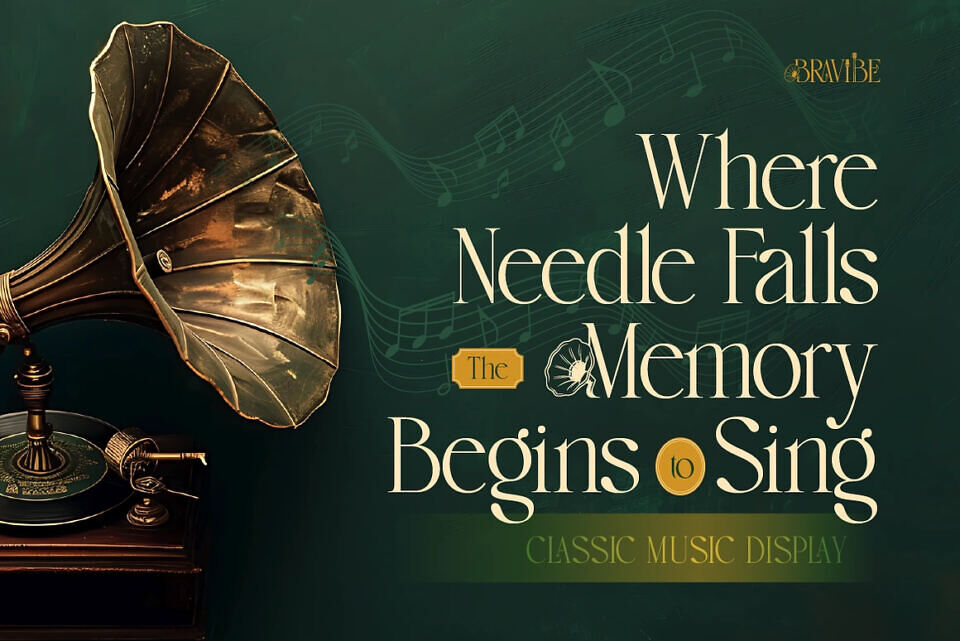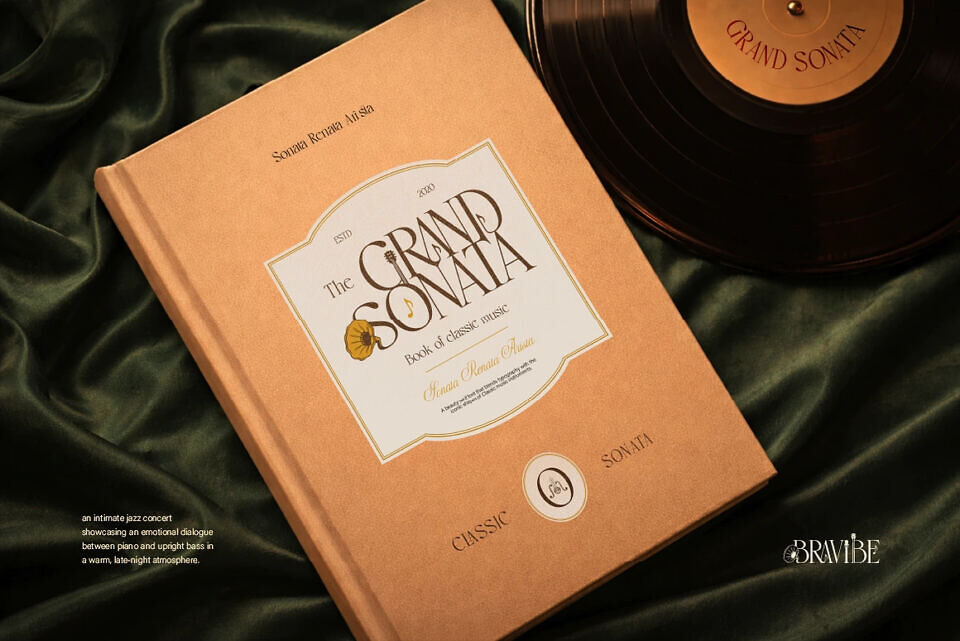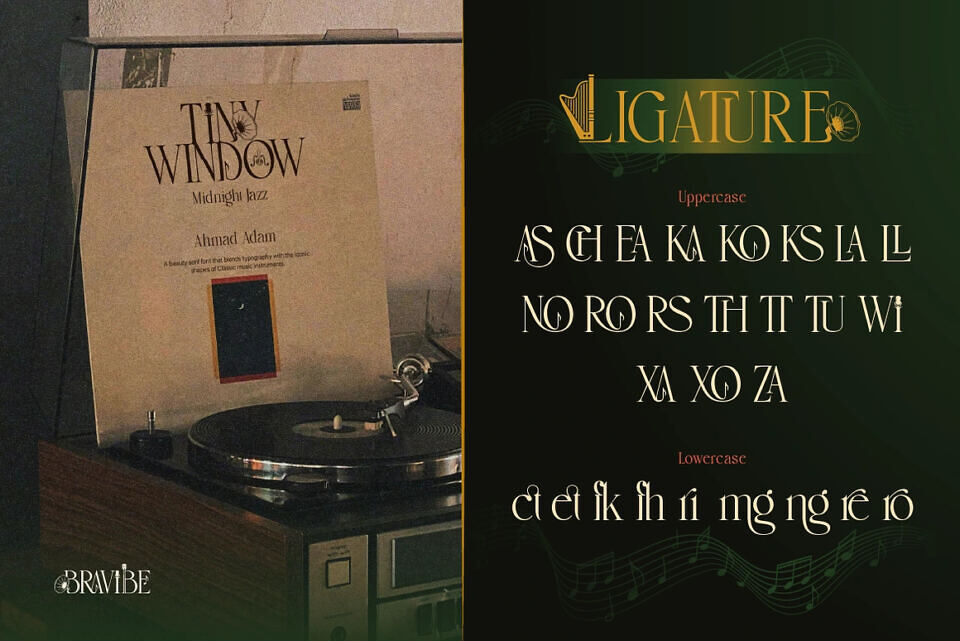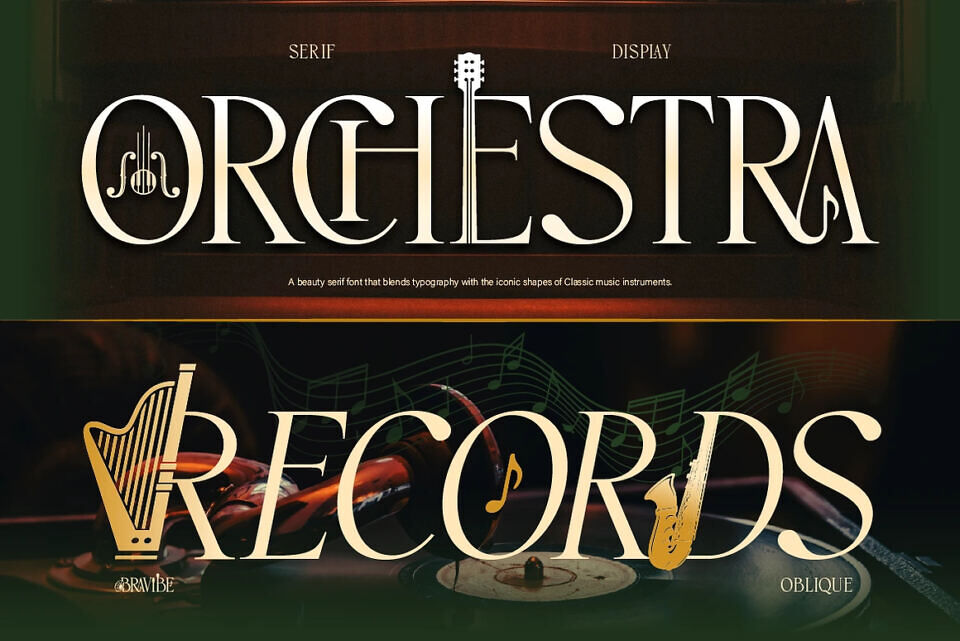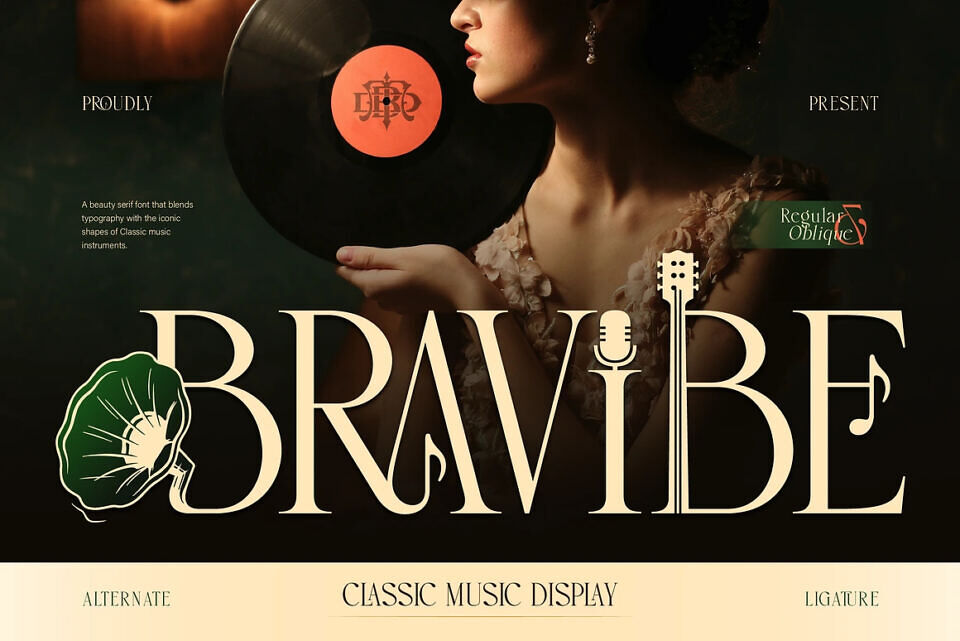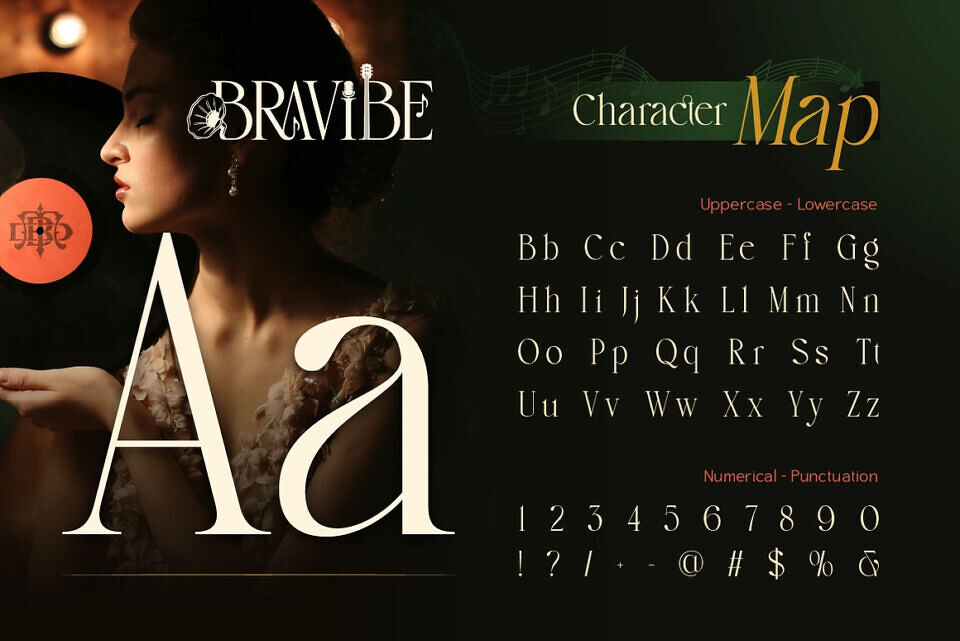
Bravibe Font
Introducing Bravibe, a sophisticated serif display font inspired by the beauty of classic music instruments and the soulful essence of jazz. Every letter is crafted with unique artistic details, featuring subtle elements like saxophones, harps, and musical notes, creating a harmonious blend between typography and rhythm.
Bravibe is designed to stand out. Its elegant curves and high-contrast strokes give a luxurious and editorial feel, while the decorative touches add personality and storytelling to every word.